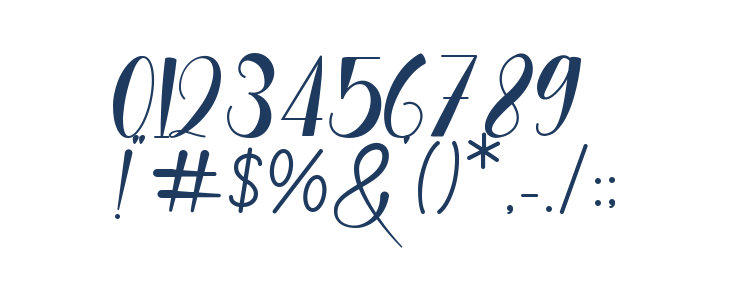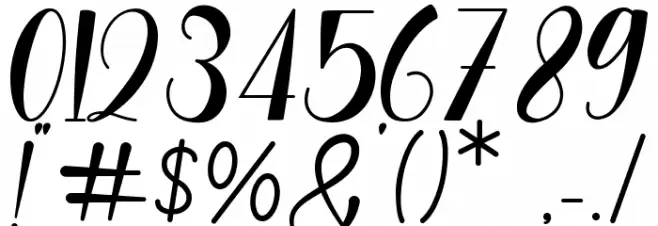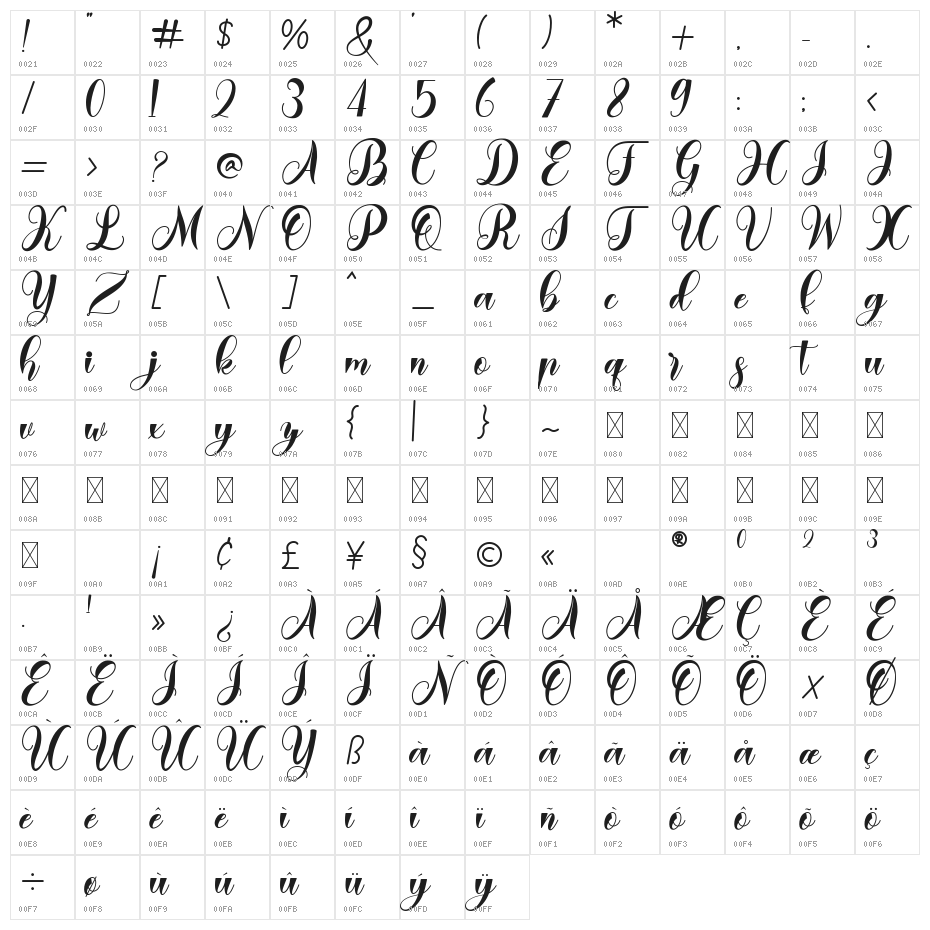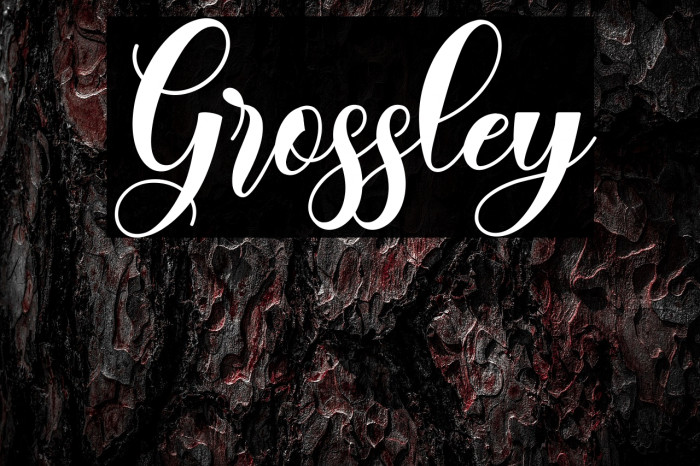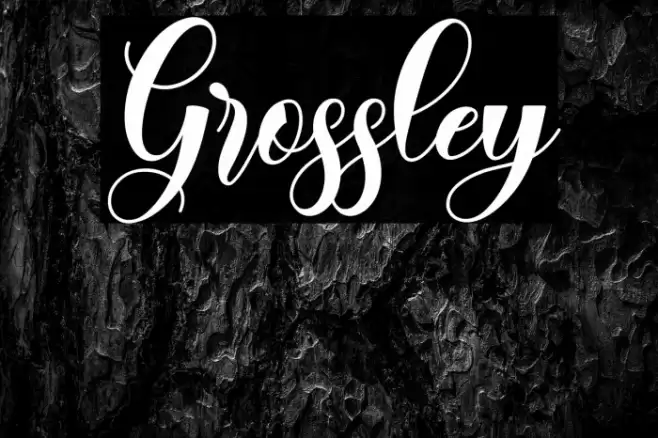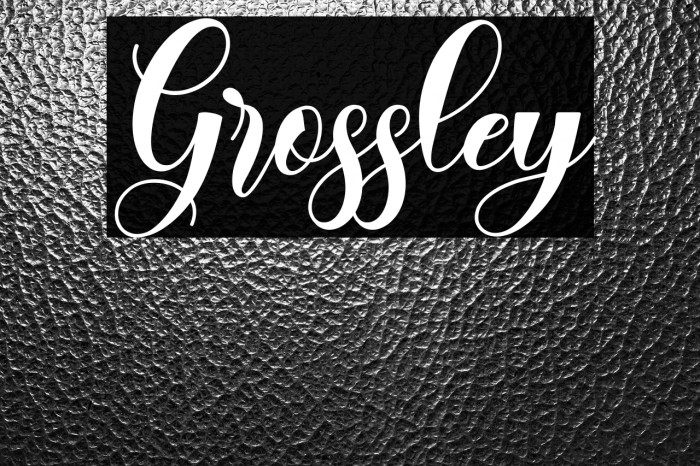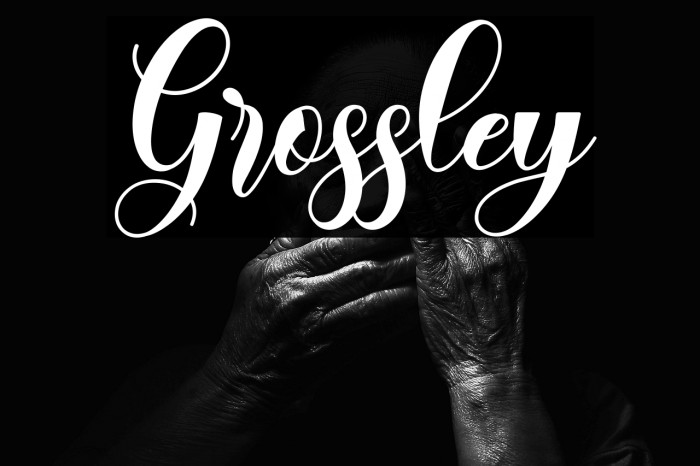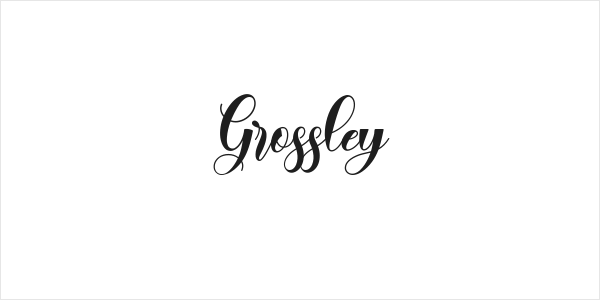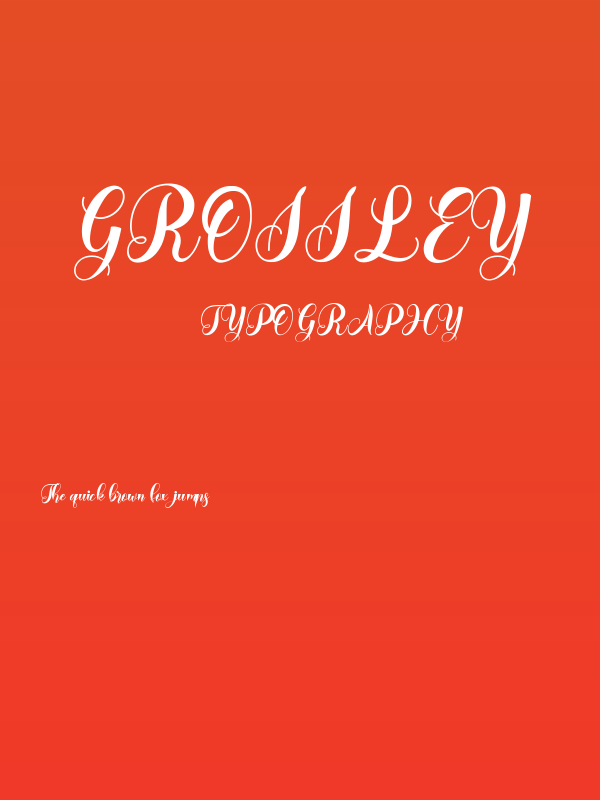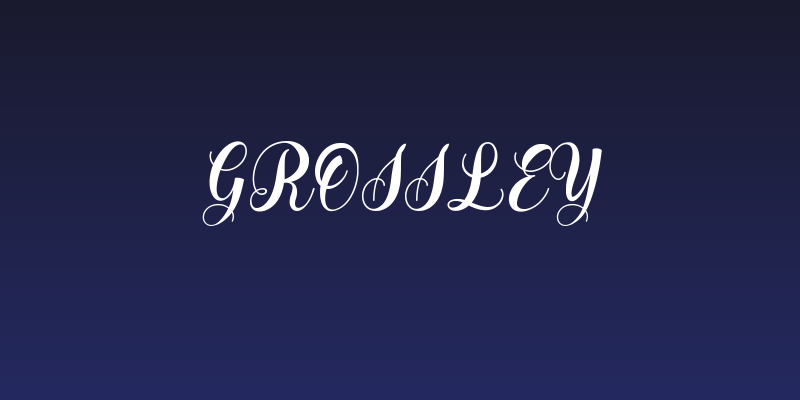
Grossley Font
Grossley Description
This font features an elegant and flowing script style, characterized by its elaborate and decorative letterforms. The uppercase letters are particularly ornate, with sweeping curves and flourishes that give a sense of movement and grace. The lowercase letters maintain a consistent style, with smooth, connected strokes that enhance readability while retaining a sophisticated appearance. The numerals are designed to match the overall aesthetic, with a slight slant and similar decorative elements. Special characters are included, maintaining the same stylistic features, making this font versatile for various uses. Its high contrast in stroke thickness adds to its dramatic and eye-catching appeal.
| Proposed Projects | Ideal for wedding invitations, luxury branding, greeting cards, and elegant packaging designs. |